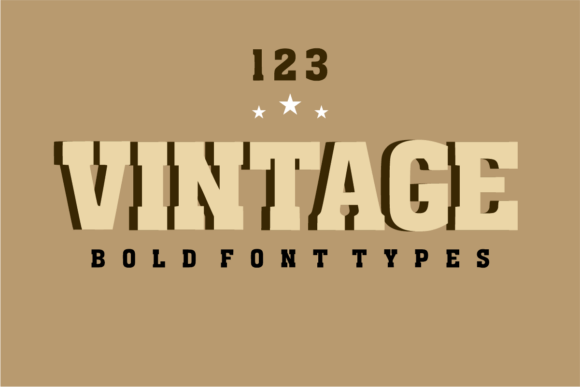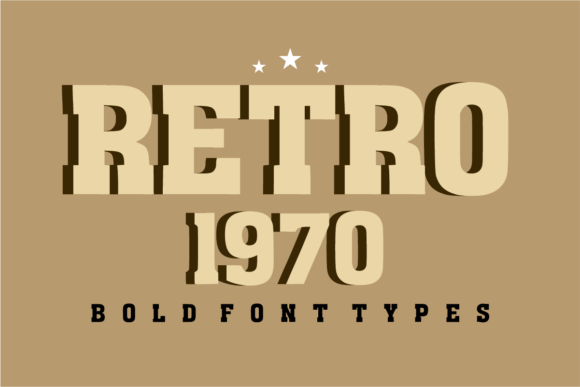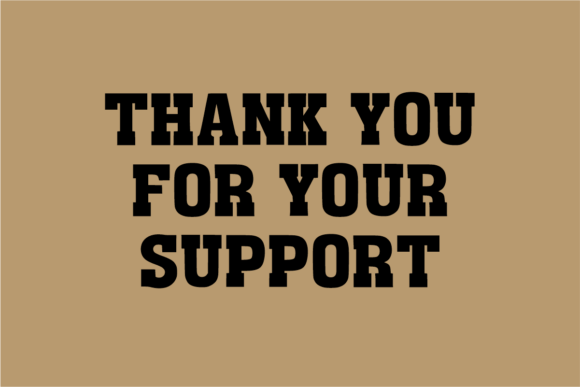
Unleash the Power of Black Slab: A Game-Changing Display Font
💥 Command attention with the massive power of “Black Slab”! 💥 Are you tired of using the same old fonts that fail to make an impact? I know I was. I recall working on a project for a fitness brand, struggling to find the perfect font that would convey strength, durability, and a professional athletic style. That’s when I stumbled upon Black Slab, a heavy-duty display font designed for maximum impact and bold storytelling.
The Perfect Blend of Vintage Industrial Grit and Modern Sports Aesthetics
Black Slab features a chunky slab-serif anatomy and a built-in 3D shadow effect, making it the perfect blend of vintage industrial grit and modern sports aesthetics. Whether you’re branding a fitness empire or creating high-end streetwear, this font delivers a solid and unbreakable vibe. Its unique design makes it an excellent choice for designers, crafters, and creative hobbyists looking to add a touch of professionalism to their work.
Why Black Slab is a Game-Changer
If your design needs to stand out from a distance, Black Slab is your go-to font. Here are some reasons why:
- ✨ Maximum Impact: Black Slab is designed to make a statement, with a bold and chunky design that grabs attention.
- ✅ Versatility: This font is perfect for a wide range of design projects, from fitness and sports branding to streetwear and apparel.
- 💪 Strength and Durability: The font’s chunky slab-serif anatomy and 3D shadow effect convey a sense of strength and durability.
- ✨ Unique Design: Black Slab’s chunky slab-serif anatomy and built-in 3D shadow effect make it a standout font.
- 🤔 Limited Use Cases: While Black Slab is a versatile font, it’s best used for display purposes and may not be suitable for body text or smaller design elements.
Black Slab was designed with the goal of creating a font that would convey strength, durability, and a professional athletic style. The designer’s inspiration came from vintage industrial signage and modern sports branding, resulting in a unique font that’s both bold and elegant.
Q: What is Black Slab font?
A: Black Slab is a heavy-duty display font designed for maximum impact and bold storytelling.
Q: What is Black Slab best used for?
A: Black Slab is best used for display purposes, such as headlines, titles, and branding elements.
Q: Is Black Slab easy to read?
A: While Black Slab is a bold and chunky font, it may not be suitable for body text or smaller design elements. However, it’s perfect for headlines and titles where you want to make a statement.